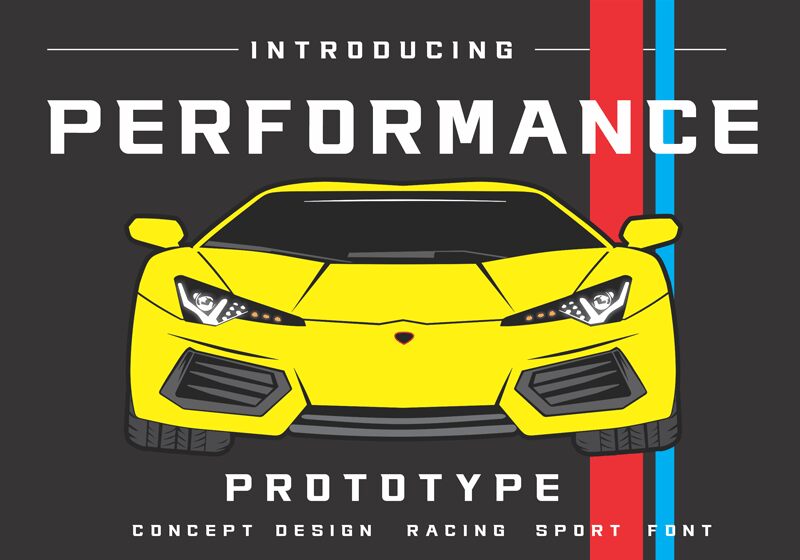
Performance, designed by Sompong Pradubboot, is a display font that speaks to the future with its sleek and expansive letterforms. The assertive presence of Performance radiates a modernistic appeal, capturing the essence of innovation and forward-thinking design. Its characters boast an expanded style that commands attention, making it a go-to choice for messages meant to stand out.
In various design contexts, Performance shines in headlines and signage where its impactful stance can be fully appreciated. The font's boldness lends itself well to branding projects or advertising campaigns aiming for a contemporary edge. Its futuristic flair makes it ideal for tech industries or events promotion, guaranteeing that any text set in Performance is poised to leave a lasting impression.
PERFORMANCE